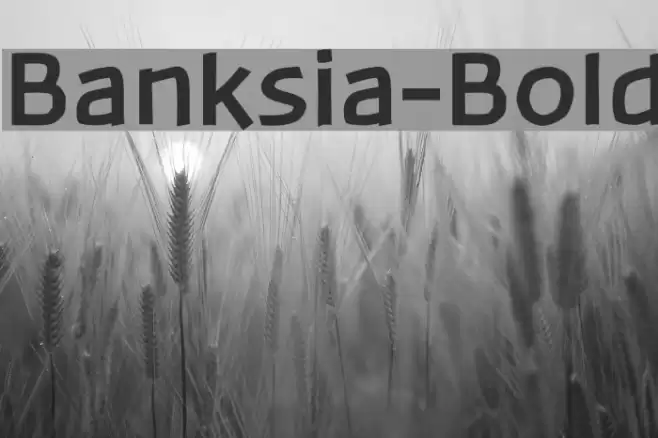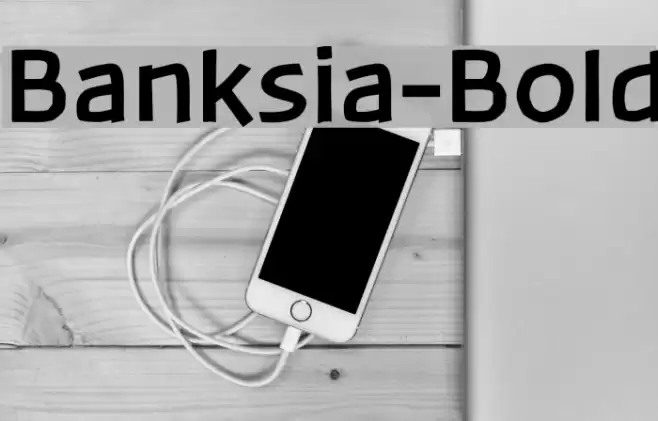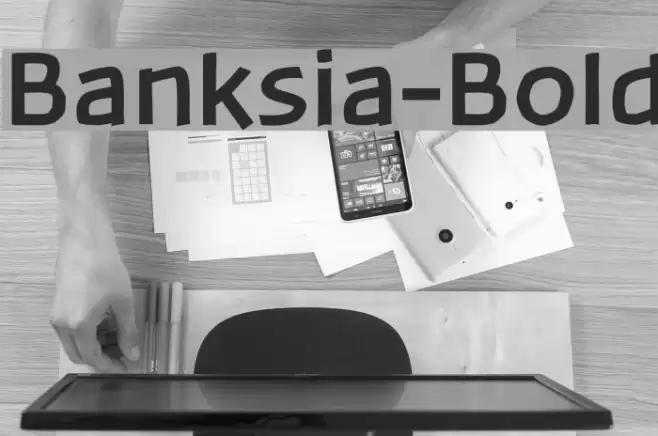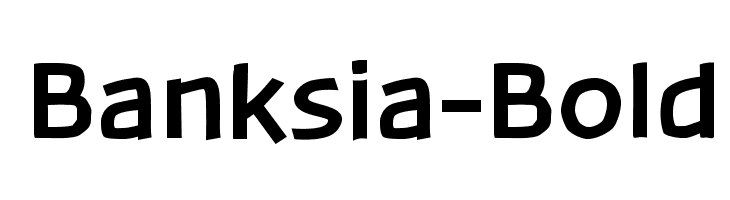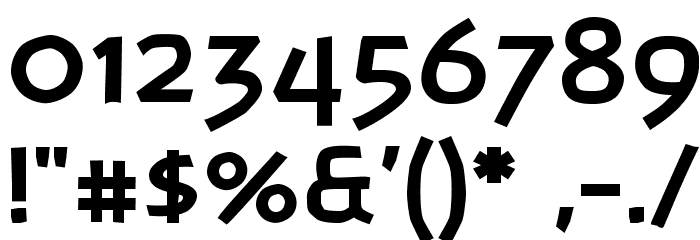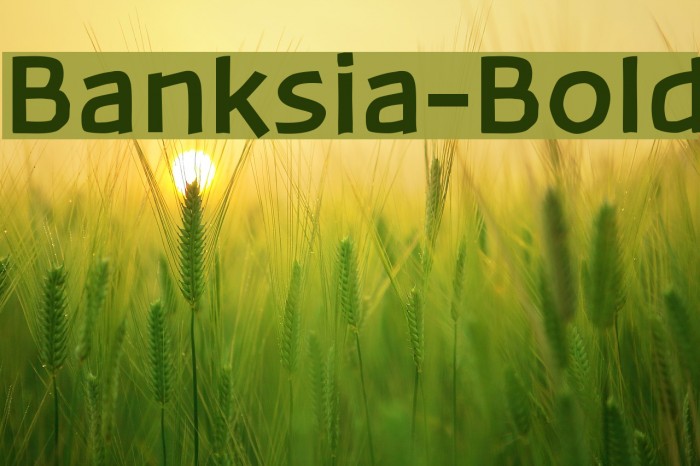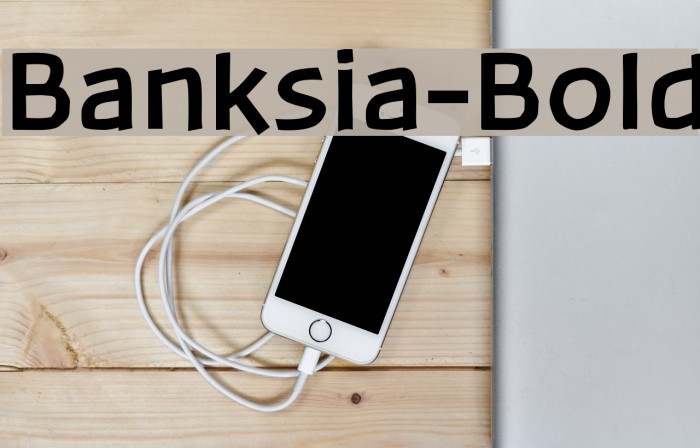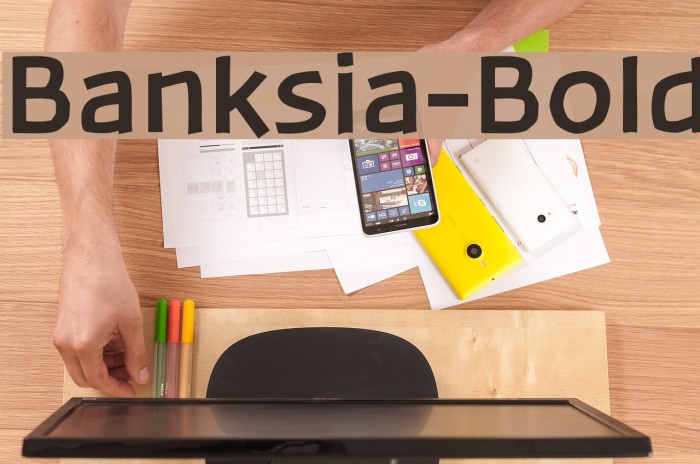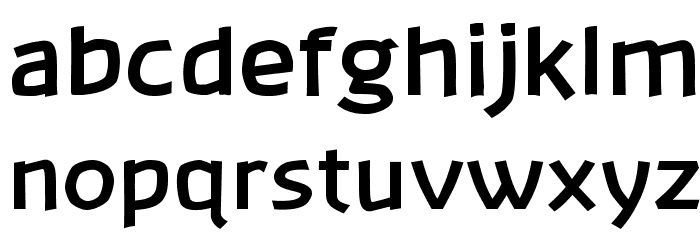
Banksia-Bold Font
Banksia-Bold Description
This font features a bold and modern design with clean, geometric lines. The characters are well-defined and exhibit a slight curvature, giving them a friendly and approachable appearance. The uppercase letters are strong and assertive, while the lowercase letters maintain a consistent style with a touch of playfulness. The numerals are clear and easy to read, making them suitable for various applications. The special characters are distinct and match the overall aesthetic, ensuring versatility in design projects.
A bold, modern font with clean lines and a friendly appearance from Uncategorized fonts.
- Proposed Projects: Ideal for branding, advertising, and digital media projects where a modern and approachable look is desired.
- Use Case: Headlines, Logos, Branding